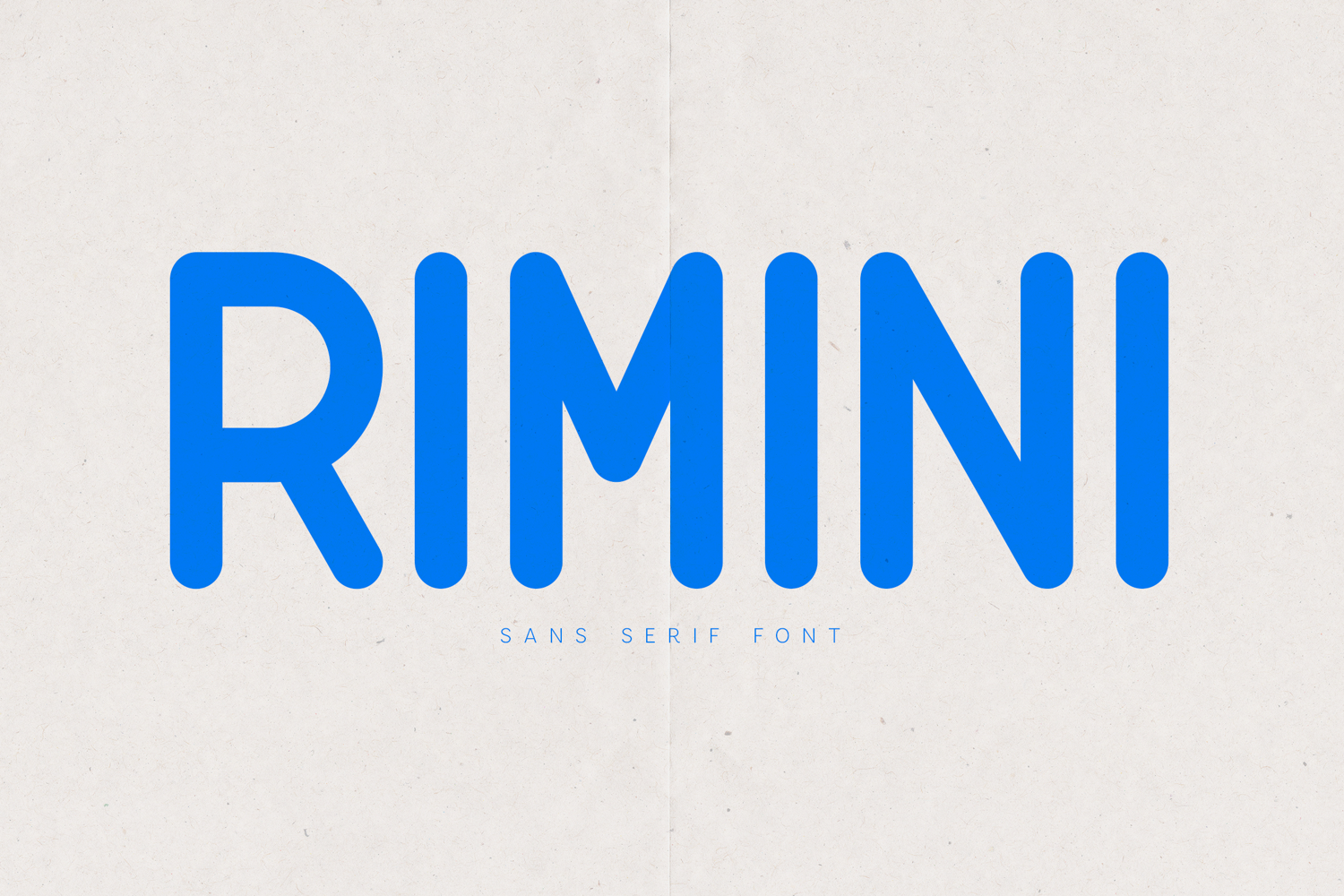
Rimini Rounded Sans Serif Modern Clean Typeface
Rimini is a modern rounded sans serif font designed with clean geometry and smooth curves. Its balanced structure and soft terminals create a friendly yet contemporary look, making it ideal for a wide range of design applications.
With its minimal aesthetic and strong readability, Rimini works perfectly for branding, digital interfaces, packaging, and editorial layouts. The rounded forms add warmth while maintaining a modern and professional tone.
Rimini is a versatile typeface that performs beautifully across both display and text usage, offering clarity, consistency, and a distinctive visual identity.
• Rounded geometric design
• Clean modern structure